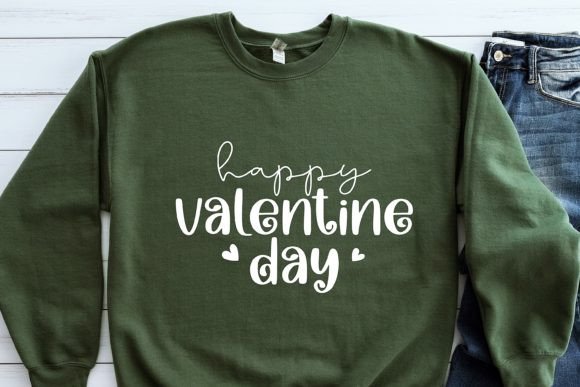
Candy Cane Wishes Font
CandyCane Wishes is a cool, friendly, and informal handwritten font that can be used for all chalkboard quotes or teaching material! Its authentic look and feel will add a personal and realistic touch to your designs.